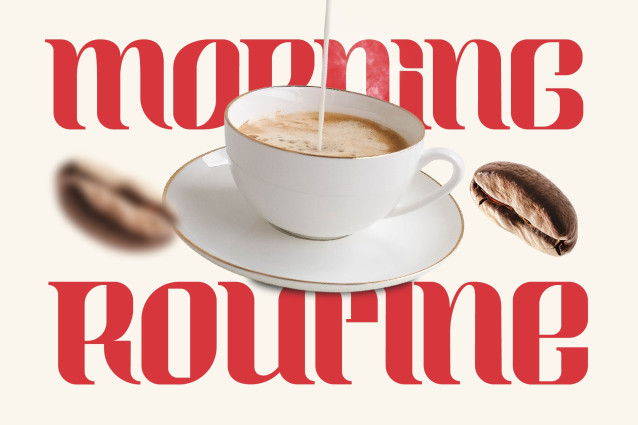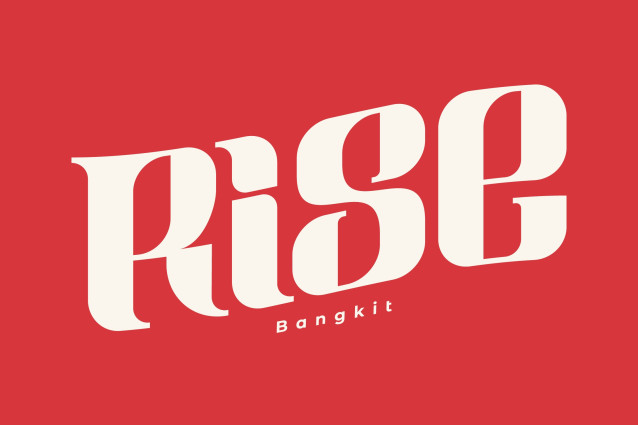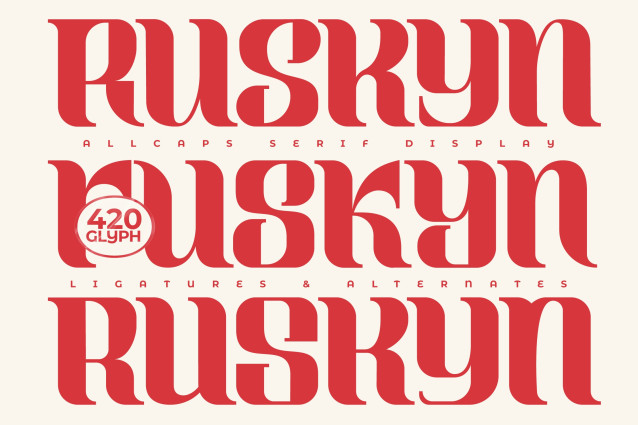
Ruskyn Font
Ruskyn Font is a simple and modern display font suitable for quotes, logos, headings, titles, and many more. Use it on any of your creative projects, and your designs will become outstanding!